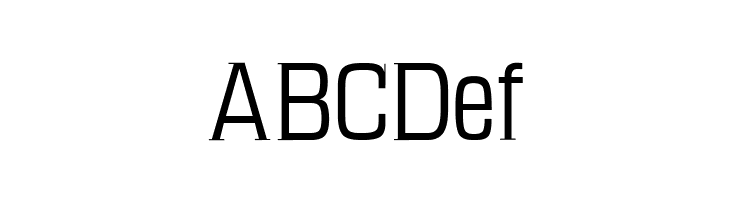
MKSerifTallXMedium Font
A tall, elegant serif font with medium weight and subtle serifs.
MKSerifTallX Font
A tall, elegant serif font with a modern and classic appeal.